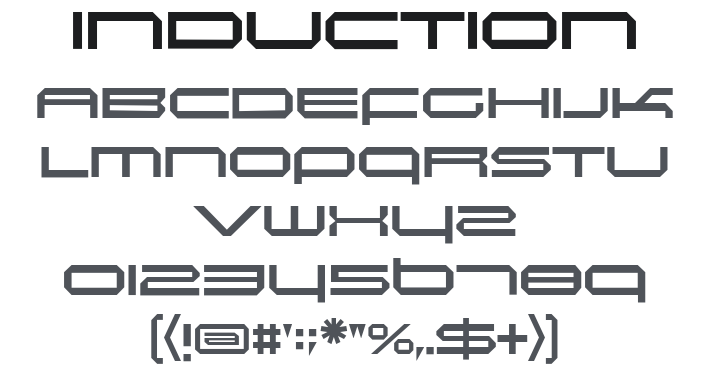
Induction Font
About Induction
Induction is a digital display typeface with a wide, outstretched structure inspired by Wim Crouwel's radical 1967 New Alphabet — a typeface built purely from horizontal and vertical strokes. Induction takes that same grid-based philosophy but makes it more legible and approachable. Its clean, modular letterforms feel like a refined LCD readout. Perfect for tech interfaces, sci-fi titles, digital signage, and futuristic branding.